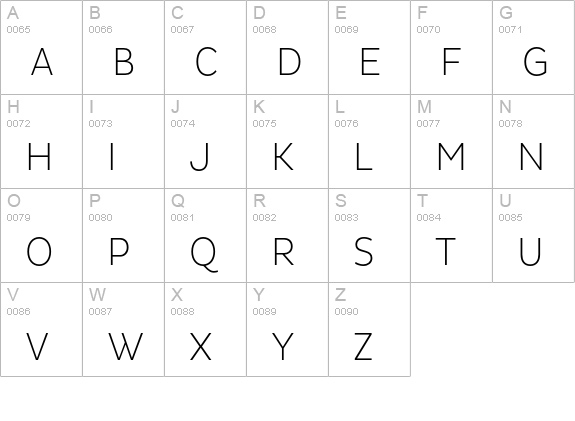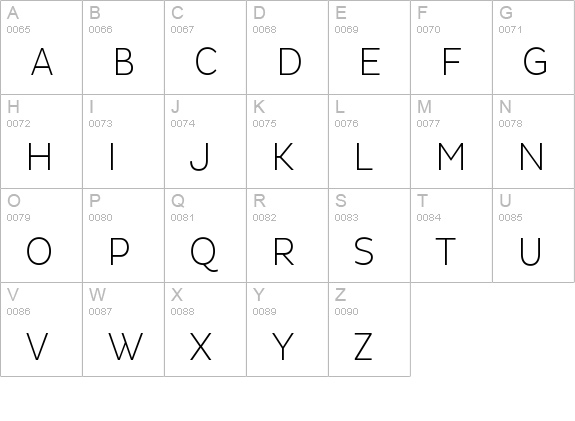
Pluto Sans Cond ExLight is a distinctive, condensed-width variant in the Pluto typeface family \xE2\x80\x94 well suited to design and typography projects.
Pluto Sans Cond ExLight font is a modern and stylish typeface that exudes sophistication and elegance. With its delicate and refined design, this font is perfect for conveying a sense of minimalism and luxury in your projects. The slim and sleek letterforms of Pluto Sans Cond ExLight make it a versatile choice for a variety of design applications, from branding to editorial design. What sets Pluto Sans Cond ExLight apart is not only its aesthetic appeal but also the fact that it is available for free download at FontsMarket.com. This means that you can easily access this high-quality font without any cost, making it a valuable addition to your font library. Whether you're working on a professional project or simply want to enhance your personal designs, Pluto Sans Cond ExLight is a fantastic choice that combines beauty and accessibility. Elevate your typography with this exquisite font today.